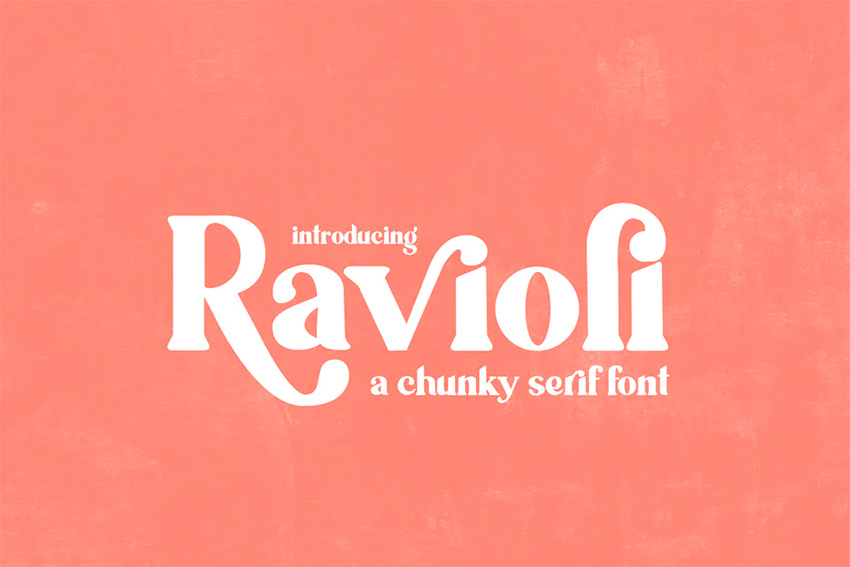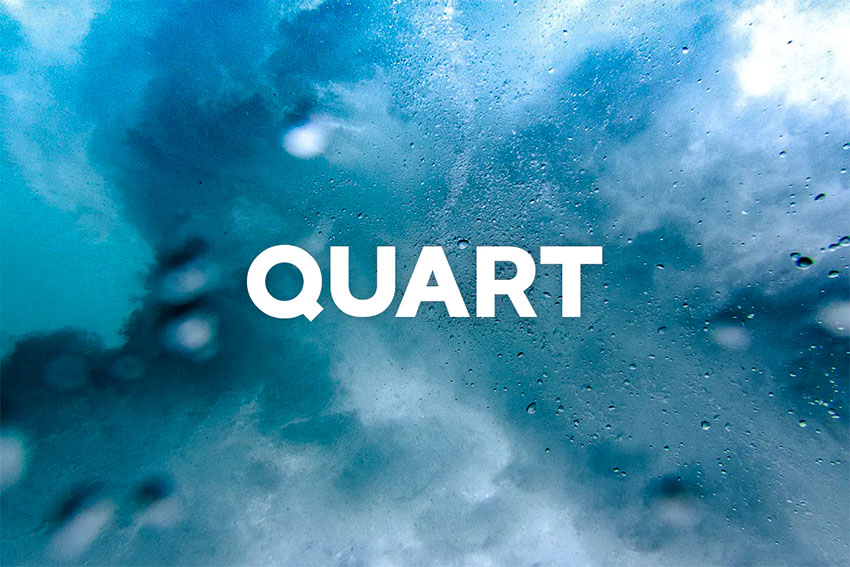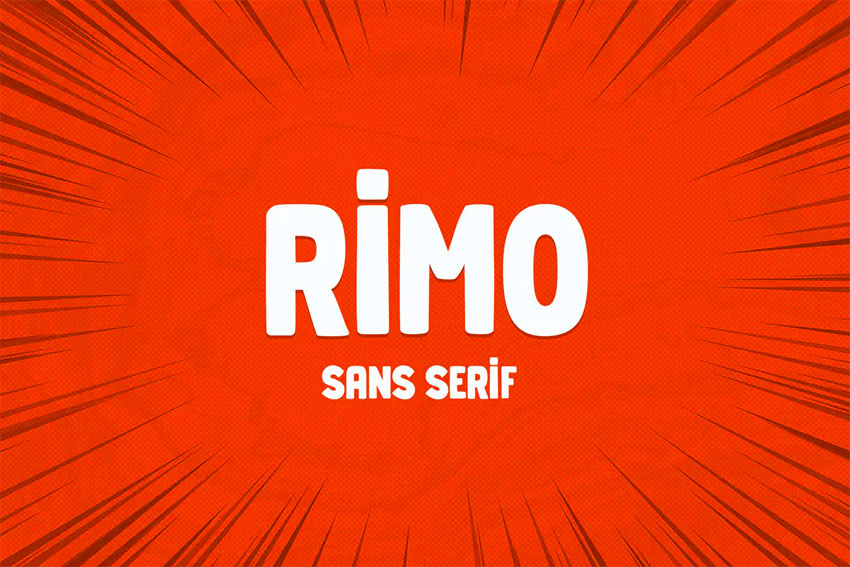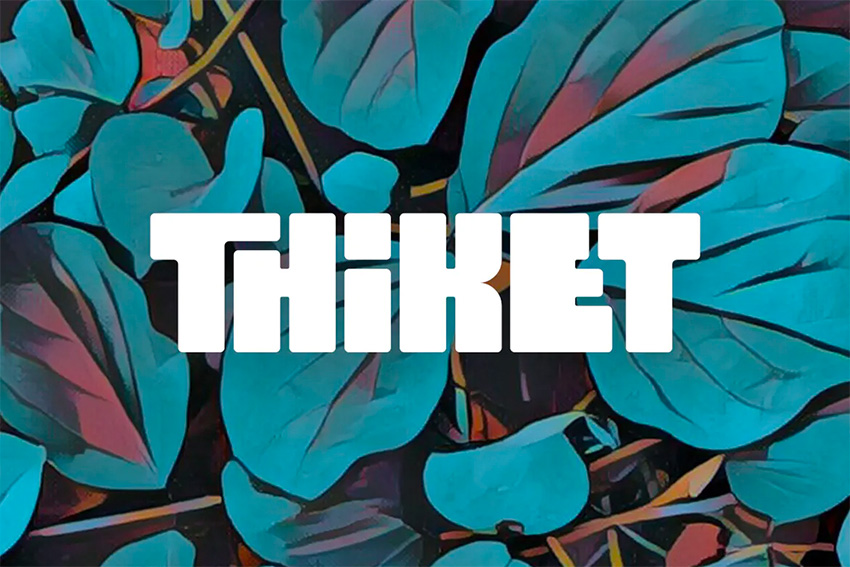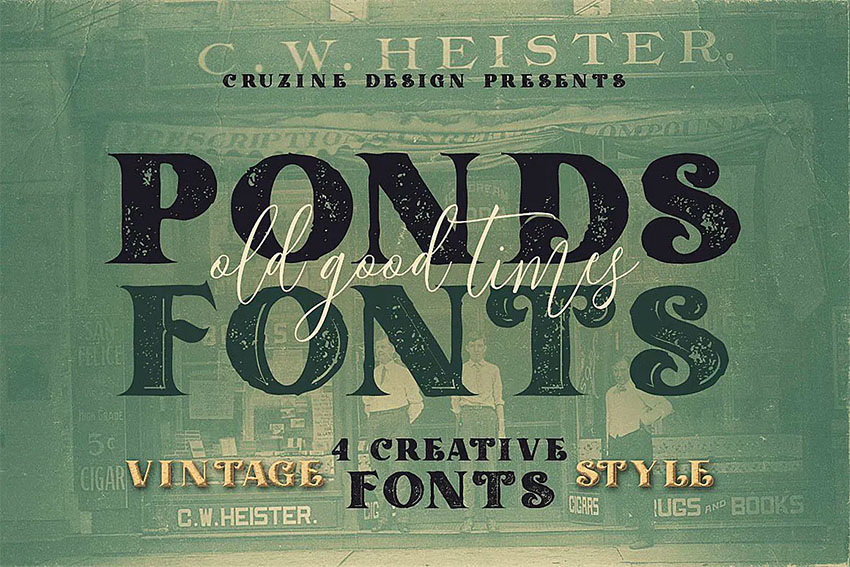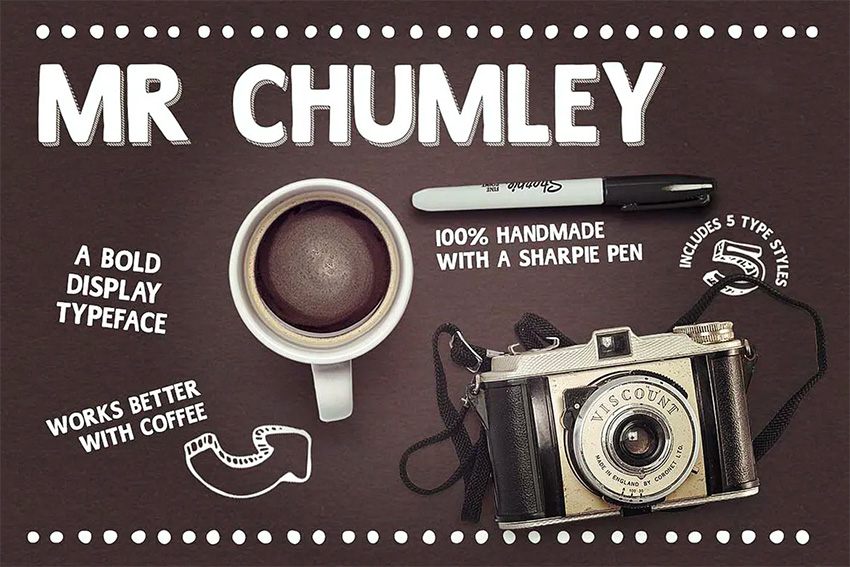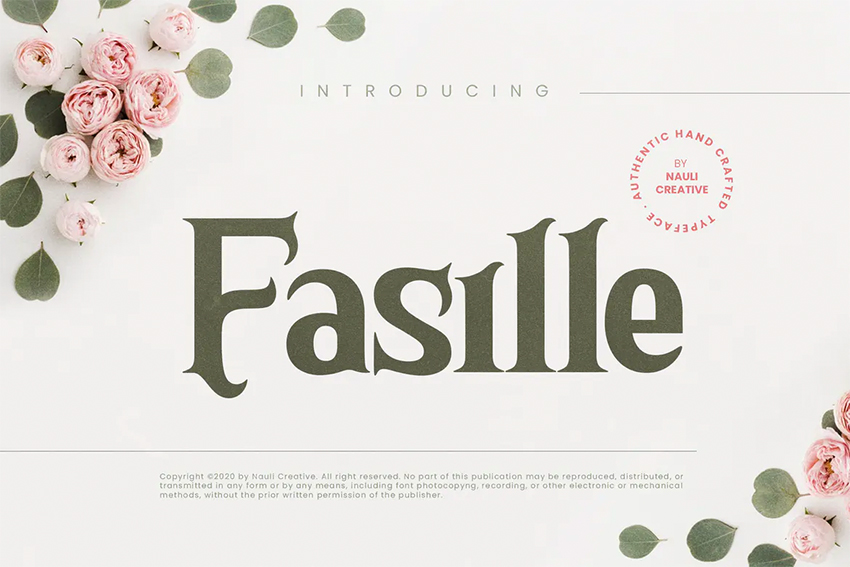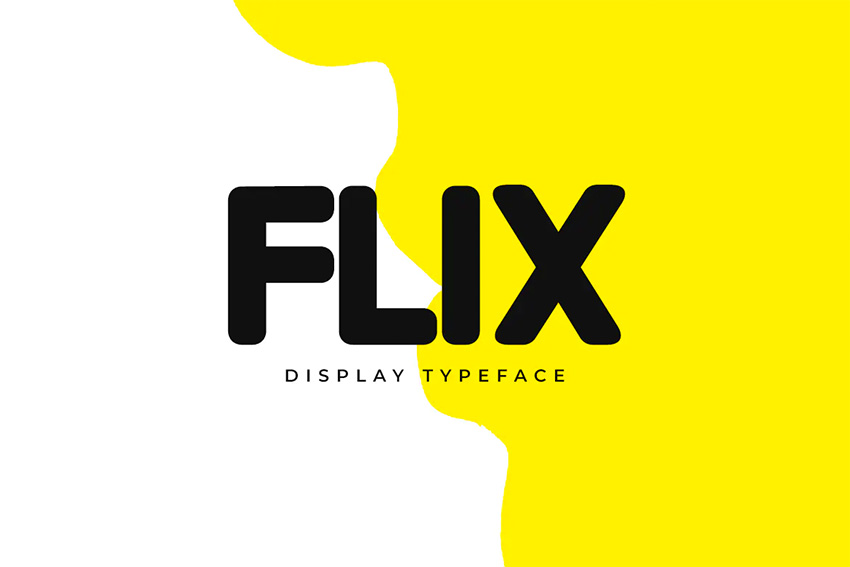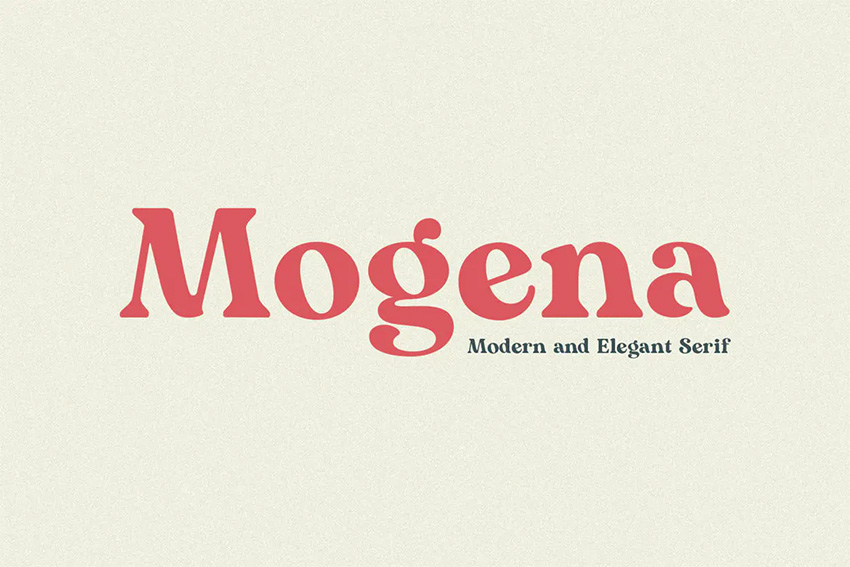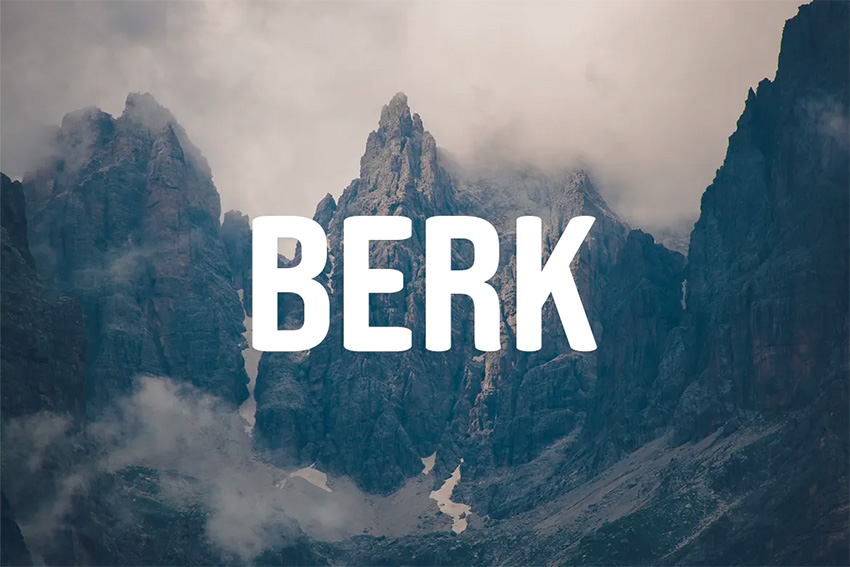
40 Best Bold Fonts (Download Condensed, Serif, Sans Serif, & Big Bold Fonts Now)
Big bold fonts make for perfect display type, and there are so many stylish, modern bold fonts out there to download today. Check out this list of thick bold fonts for type inspiration and consider downloading your favorite cool bold fonts from this list today.
When Should You Use a Bold Font?
Turn to a bold font to create emphasis. We tend to do this even in simple documents, like a report or written paper. We bold things we want to add extra attention to. The same goes in a design setting. Big bold fonts command attention and are great for titles, headings, signage, and branding.